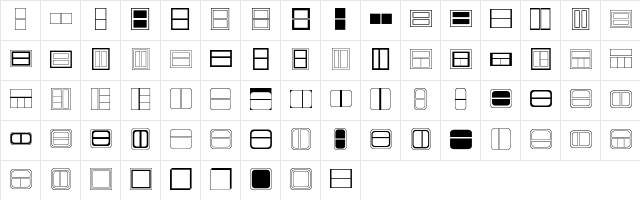
Boxes Regular
Design Context for Boxes Typeface
Boxes offers clean, dependable letterforms without strong stylistic allegiance, making it a practical choice for designers who need flexibility.